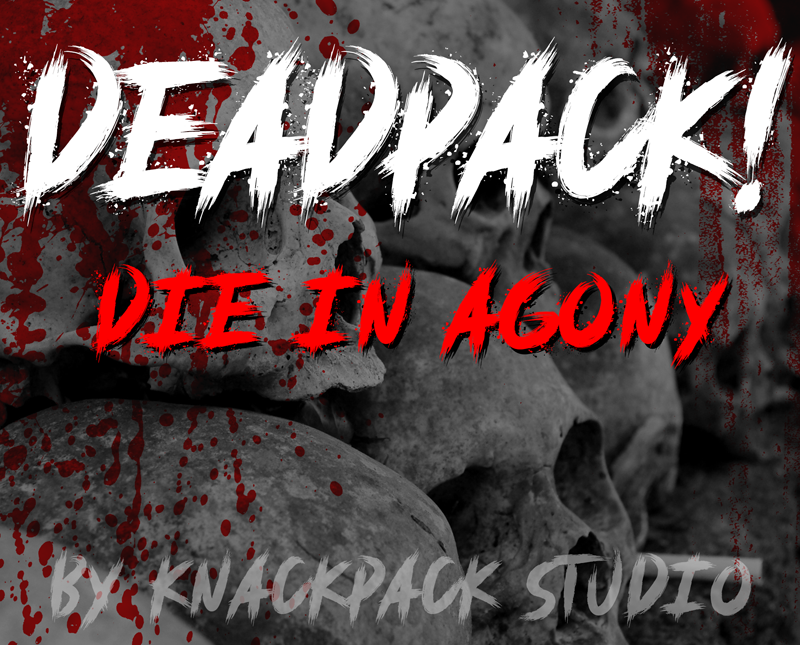
Preview and download Deadpack Font. Created by Knackpack Studio in Script Trash styles with Demo license.
- Introducing - DEADPACK! - Horror inspired font with special effects to make it more brutal. All Capital. Demo version. 100% FREE for Personal. Donation is Highly appreciated. :) FULL / Commercial Version available at Website: http://www.knackpack.studio/fonts CM: https://creativemarket.com/knackpackstudio E N J O Y |